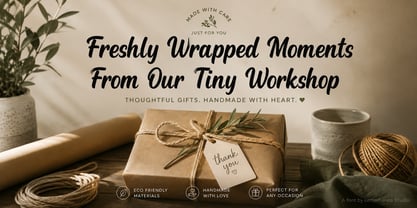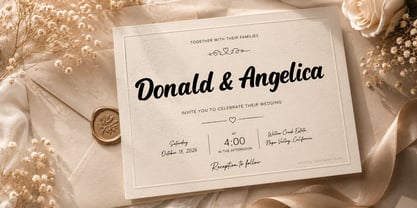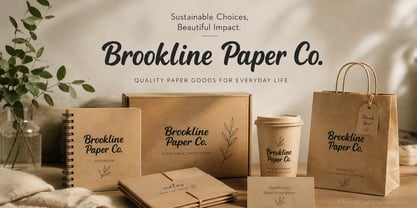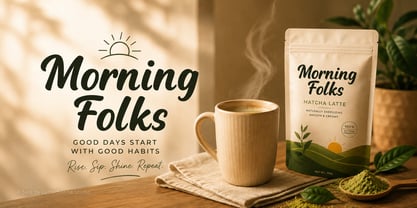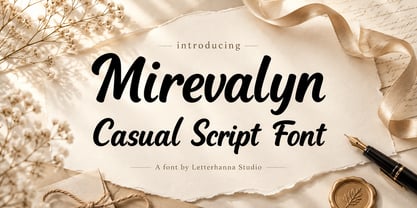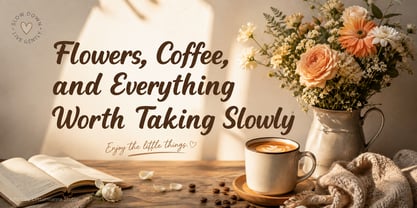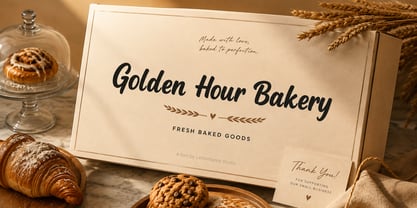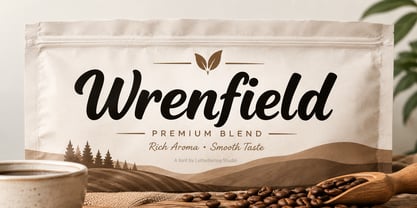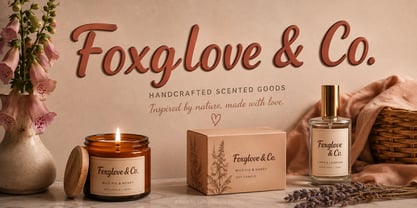
Mirevalyn
por Letterhanna Studio
La familia tipográfica Mirevalyn fue diseñada por Rinaldo Hasibuan y publicada por Letterhanna Studio. Mirevalyn contiene 1 estilos. Más información sobre esta familia
Mirevalyn: A Casual Script Font for Modern Design
Some designs look polished but still feel flat. Mirevalyn brings the missing spark with a flowing, expressive style that makes words feel more lively and inviting.
Mirevalyn is a Casual Script Font with smooth connections, bold strokes, and a relaxed handwritten rhythm. Its flowing letterforms create movement while maintaining a clean and stylish appearance.
The result is a Modern Script that feels effortless rather than overly formal. It works beautifully when a design needs warmth, charm, and a touch of spontaneity.